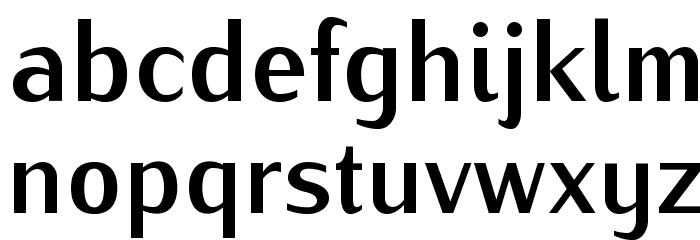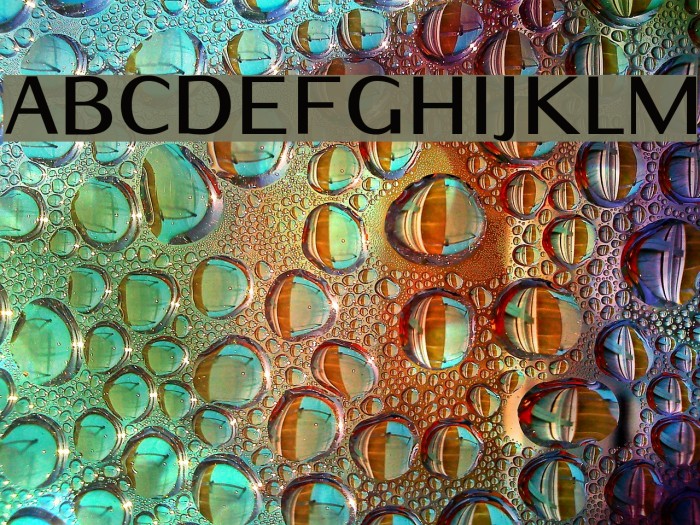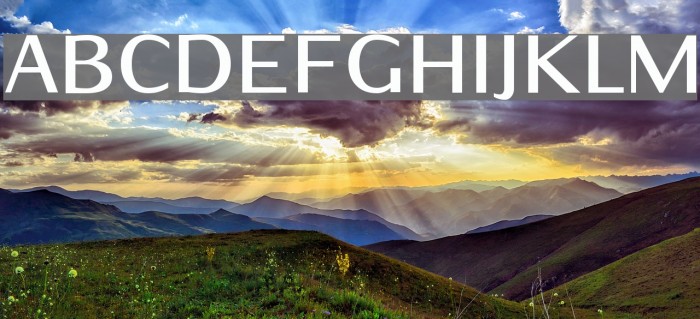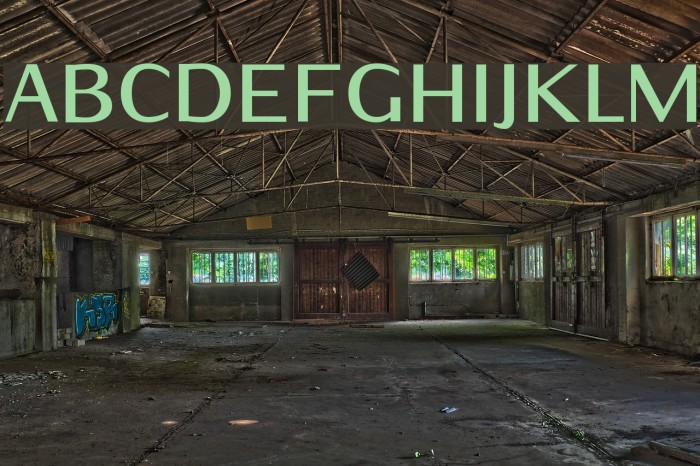
Iwona-Bold Font
This font exhibits a clean and modern sans-serif style with a bold weight, making it highly legible and impactful. The characters are well-proportioned with a slightly condensed width, providing a compact yet clear appearance. The uppercase letters are strong and assertive, while the lowercase letters maintain a friendly and approachable look. The numerals are uniform and easy to read, complementing the overall design. Special characters are distinct and well-integrated, enhancing the font's versatility. The consistent stroke width throughout the font ensures a harmonious and balanced presentation, suitable for various design applications.
A bold, modern sans-serif font with a clean and compact design.
- Proposed Projects: Ideal for branding, headlines, posters, and digital content where clarity and impact are essential.
- Category: Sans-Serif
- Width: Condensed
- Use Case: Headlines, Logos, Branding